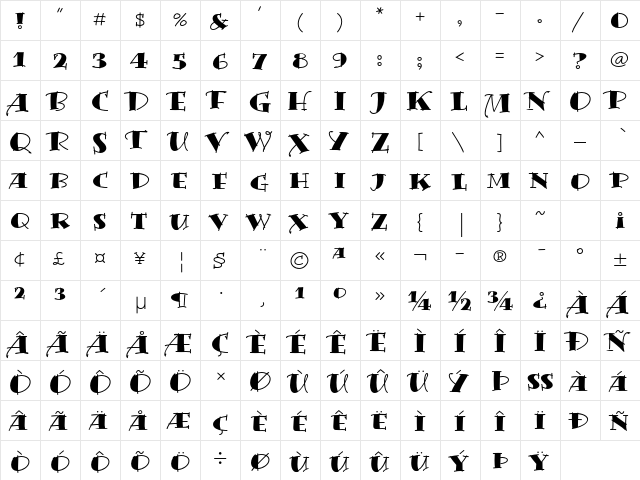
Bermuda LP Std Solid
| Designer | Garrett Boge, Paul Shaw |
Design Context for Bermuda LP Std Typeface
Bermuda LP Std is a composed and adaptable typeface that performs quietly and consistently across a wide range of design contexts.